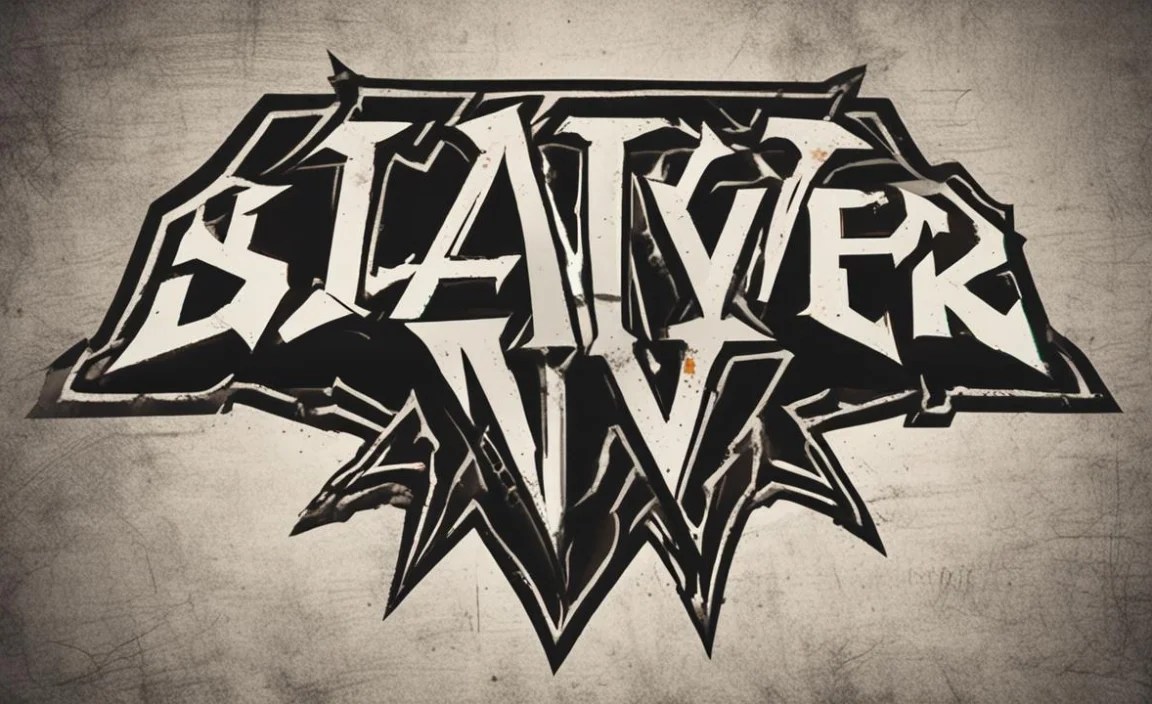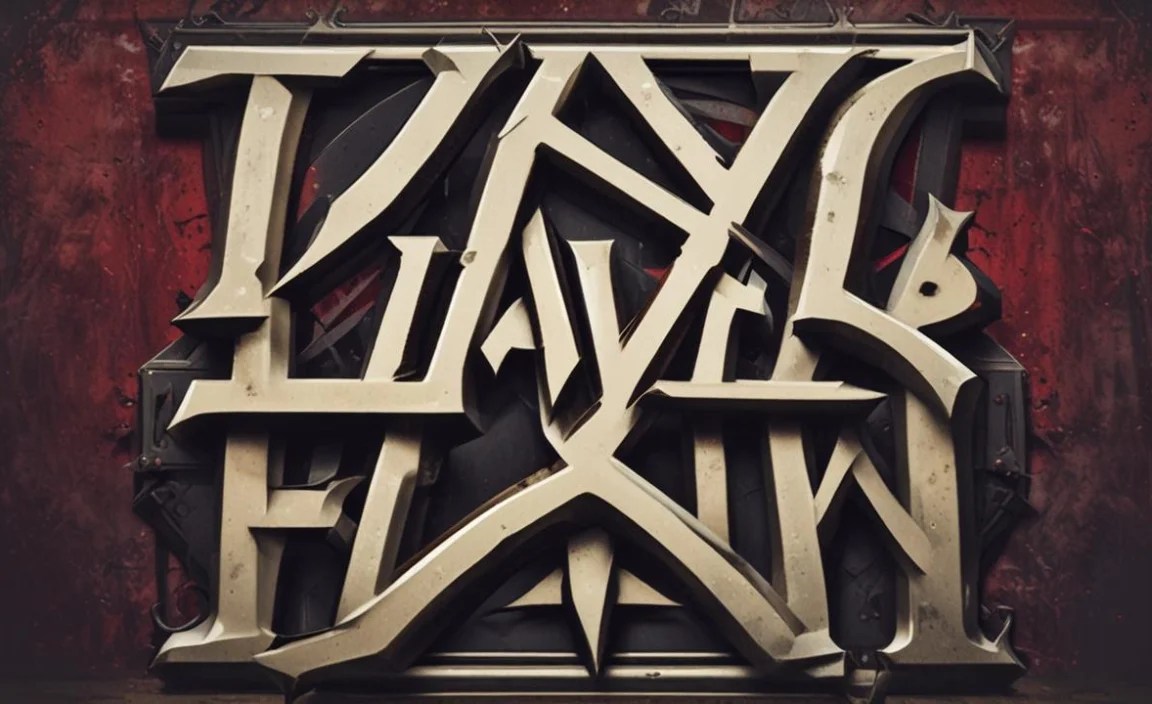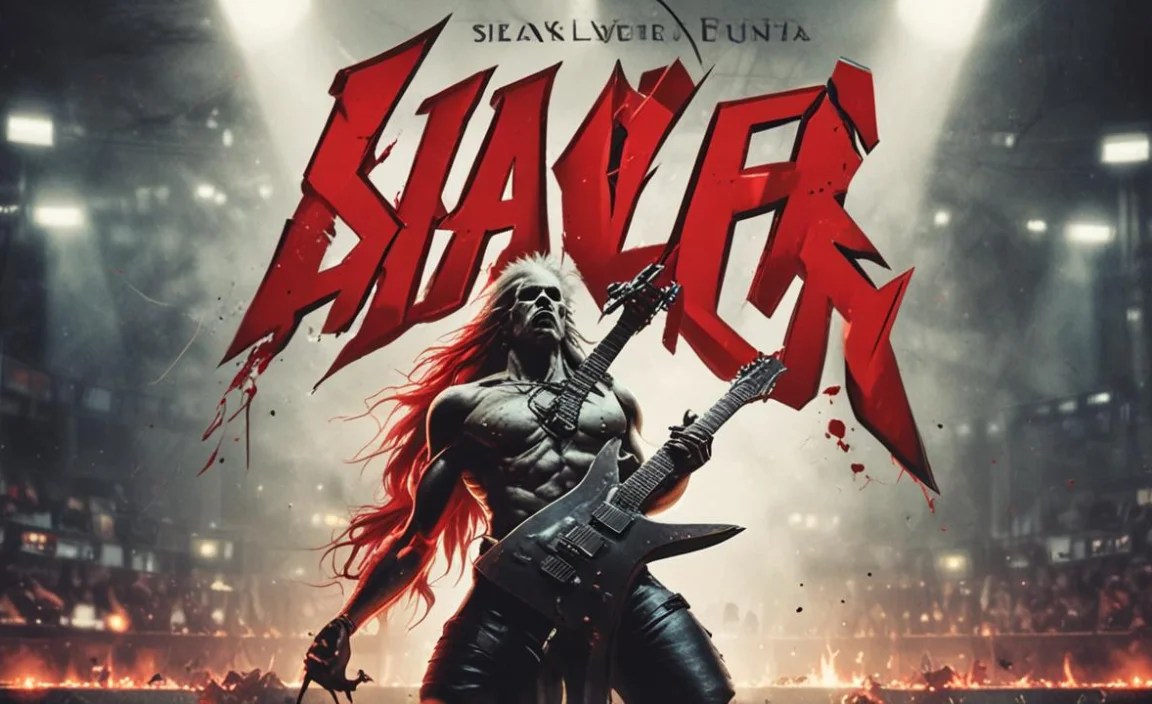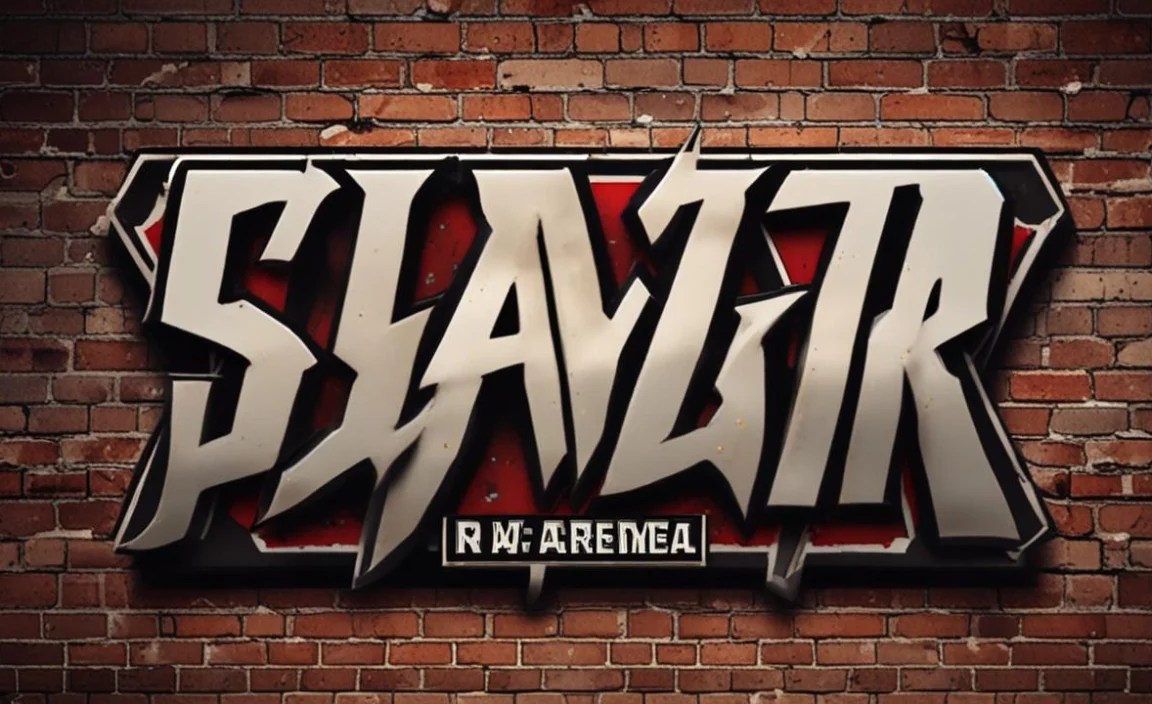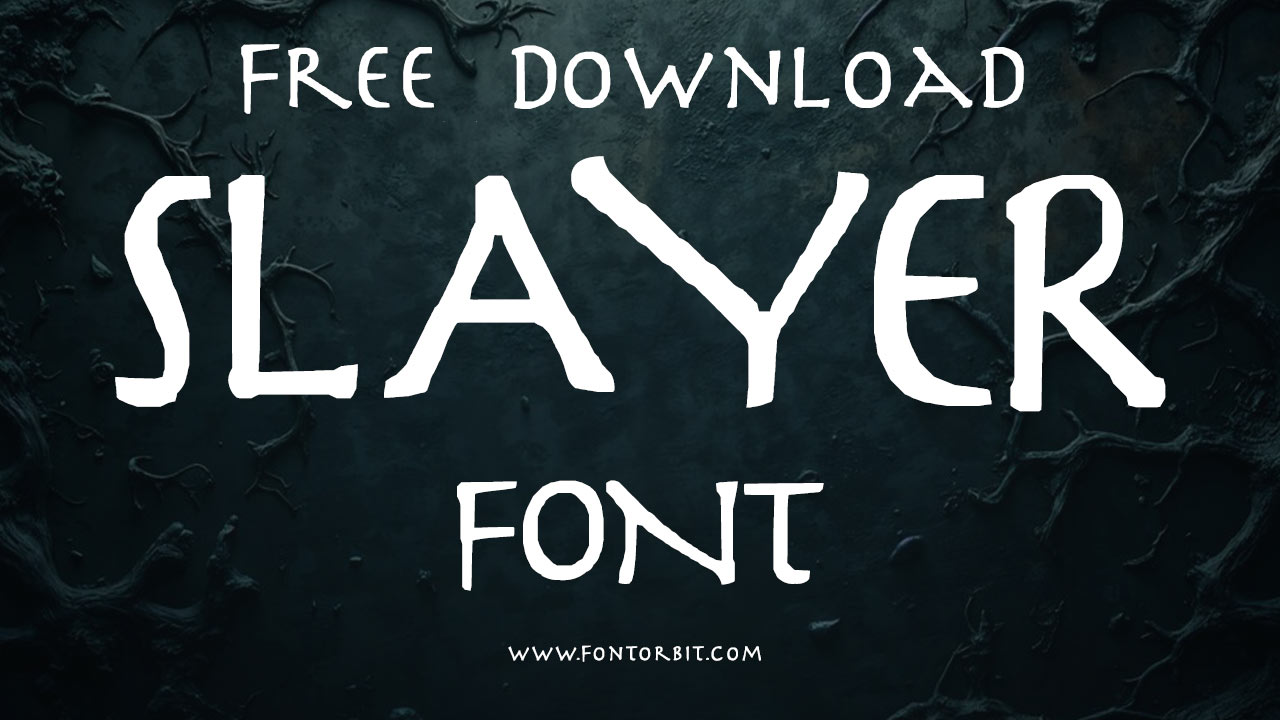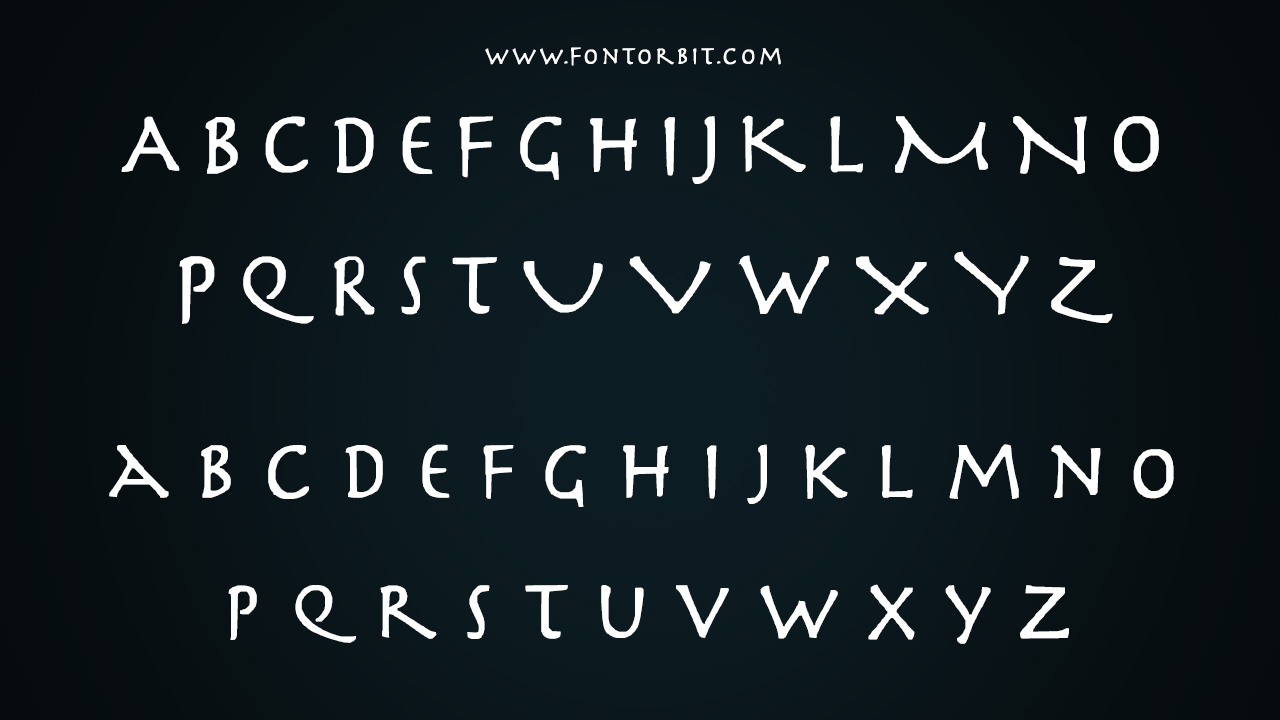
Slayer Font is a striking typeface inspired by the iconic logo of the American thrash metal band Slayer, which uses the Slaytanic font. Designed to capture the essence of heavy metal aesthetics, this font features a bold and aggressive style, perfect for making a statement in various design applications.
The actual font used in the Slayer logo is the Slaytanic font, which is categorized as a display typeface known for its sharp and angular design. The font family includes:
Slayer Font is ideal for projects that require a powerful visual impact. Its bold design makes it well-suited for:
- Band merchandise
- Album covers
- Concert posters
- Promotional materials
- T-shirt designs
The Slayer Font Found In Use
Slayer Font is a powerful display typeface perfect for a variety of heavy metal-themed projects. It’s ideal for creating bold headlines, enhancing music branding, and adding a striking touch to any design work. Whether for personal or commercial use, Slayer Font is a versatile choice that brings an edgy, modern flair to your projects.
1.What Are The Characteristics Of Slayer Font?
Slayer Font is a display typeface characterized by its sharp angles and bold style, reflecting the aggressive nature of metal music.
2.What Are The Considerations For Using Slayer Font In Branding?
Ensure the font aligns with your brand’s heavy metal aesthetic. Slayer Font is ideal for music-related projects but may not suit more mainstream or elegant themes.
3.What Are The Limitations Of Using Slayer Font In Design?
Its aggressive design might not be appropriate for designs requiring a softer or more traditional look.
4.What Are The Differences Between Slayer Font And Other Display Fonts?
Slayer Font features a bold, angular design, while other display fonts may have varied stylistic elements, such as rounded or more playful characteristics.
5.What Do Users Typically Want From Slayer Font?
Users seek a bold, aggressive typeface that embodies the heavy metal aesthetic for a range of music-related projects.
6.How To Create A Distressed Effect With Slayer Font?
Apply a distressed texture or effect using graphic design software to give the font a worn or vintage appearance if desired.
7.What Styles Are Popular In Slayer Fonts?
Bold, angular, and aggressive styles are popular, offering a strong and contemporary look suitable for heavy metal-themed design applications.